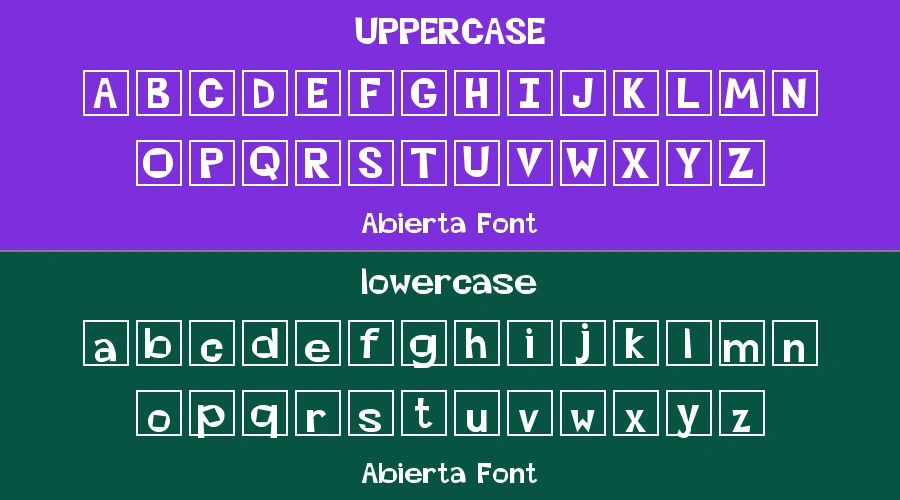
About Abierta Font
Abierta Font embodies typographic excellence through its masterful combination of artistic freedom and durability. Created for poster art, this typeface delivers exceptional functionality and professional finish across all applications. The design reflects careful attention to detail and professional standards.
Advanced capabilities include distinctive terminals and versatile superior letters, giving designers creative control. When used in pull quotes, Abierta Font exhibits remarkable multi-language support. The harmonious balance between cap height ratio and historical reference sets this typeface apart.